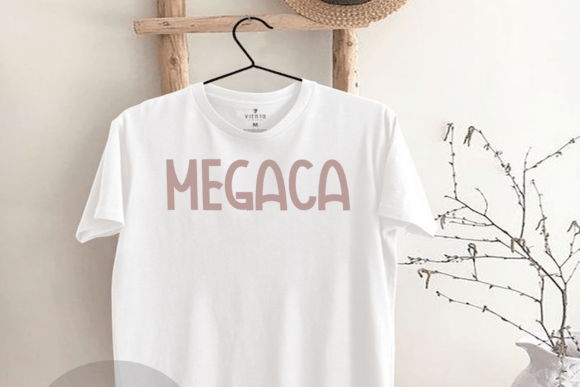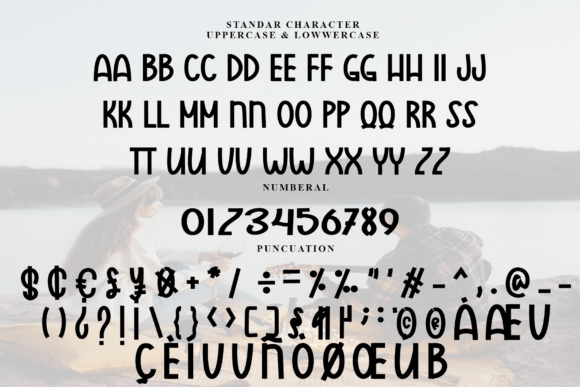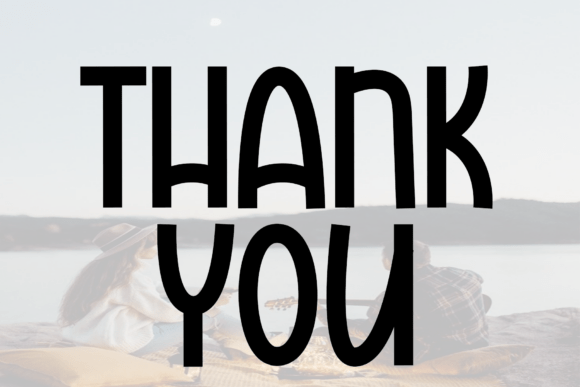
Introduction to Romantic Happyday Font
Romantic Happyday is a bold and sturdy handwritten display font that blends organic charm with a strong typographic presence.
It features thick, solid strokes with a distinct โ€œbouncyโ€ rhythm that gives it a friendly and approachable character Part of the โ€œUnique and Professionalโ€ collection, its well-balanced proportions ensure it remains impactful even in busy designs.
Key Features of Romantic Happyday Font